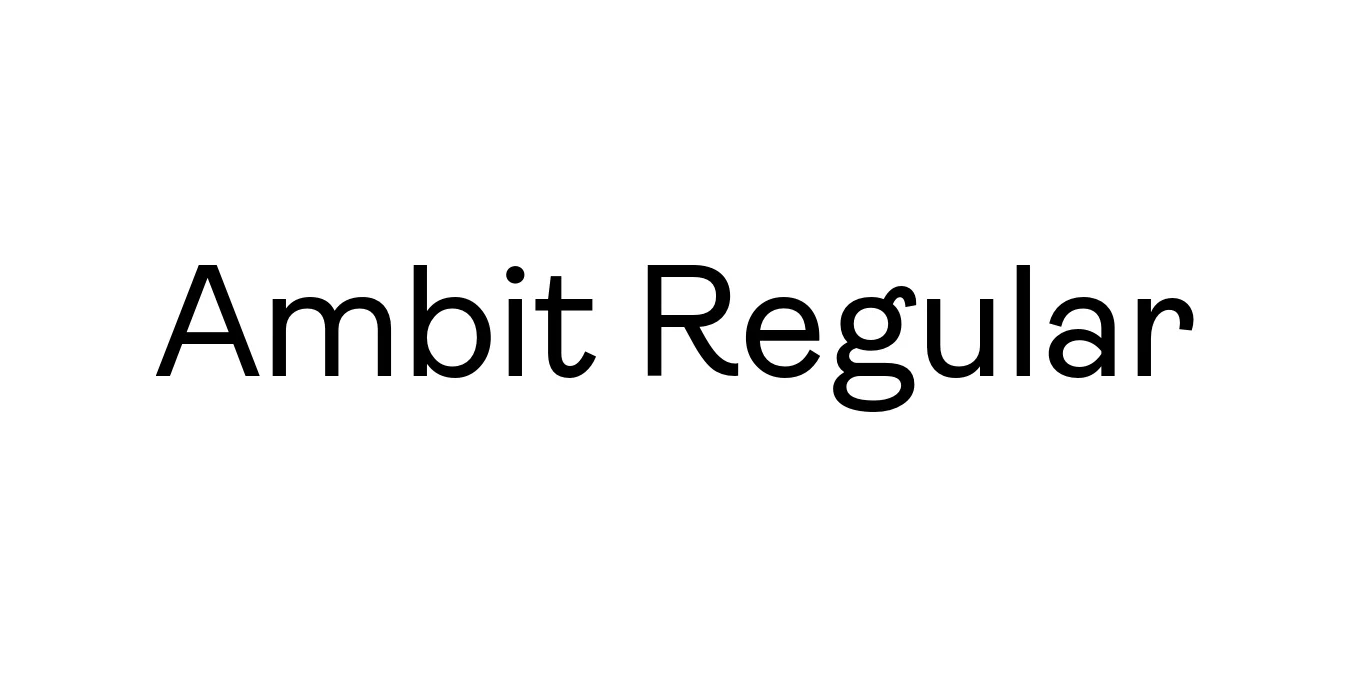
Ambit Regular
Designed by Ciro Viana
Ambit Regular is a modern sans-serif typeface designed by Ciro Viana that challenges the conventions of traditional grotesque fonts. It is most recognized for its unique, curly terminals on characters like the 'f', 'r', and 'y', which provide a quirky and eccentric rhythmic quality to the text. This typeface successfully bridges the gap between structured geometric proportions and expressive, contemporary design elements, making it a standout choice for projects that require a distinct personality.
The font was meticulously crafted to ensure maximum legibility while maintaining its stylistic quirks across various weights. Ambit is particularly effective in digital environments and high-end editorial layouts where its balance of professional structure and artistic flair can be fully appreciated. Its versatility allows it to shift from a clean, understated look in body text to a bold, statement-making presence in large-scale display applications.
Ambit Regular Best Uses
Perfect for creating memorable brand identities that want to appear professional yet unique.
Excellent for headlines and subheaders in both print magazines and digital journals.
Provides a clean and contemporary aesthetic for user interfaces and creative portfolios.